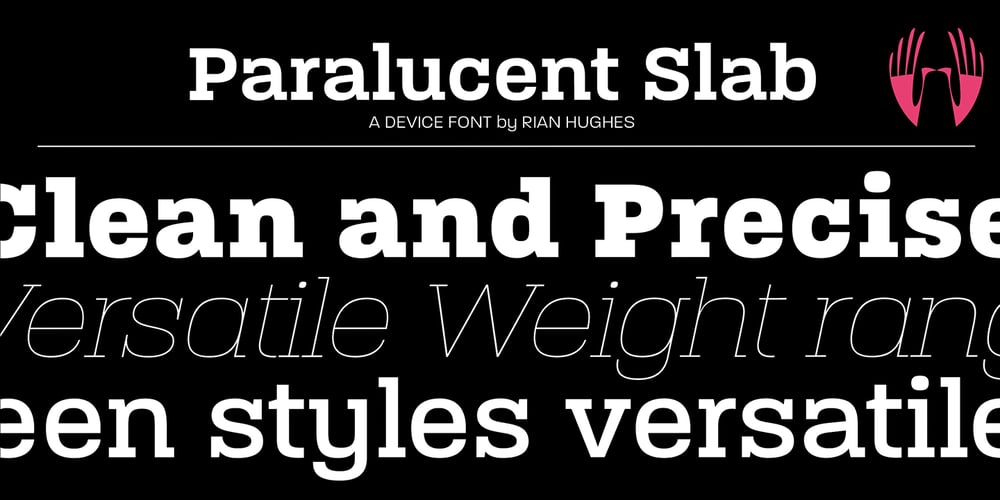
Paralucent Slab
Paralucent Slab font
Paralucent Slab Font Family was designed by Rian Hughes and published by Device. Paralucent Slab contains 14 styles and family package options. Paralucent Slab is an addition to the ever-popular Paralucent family. Paralucent is versatile all-purpose modern sans and slab serif design. Available in seven weights, from Thin to Heavy, with corresponding italics, it avoids some of the more eccentric calligraphic quirks of Akzidenz or Helvetica or the cool precision of Univers for an elegant, functional, yet warm design. Several core ideas inform Paralucent’s design. Prime attention has given to the negative space between characters, giving a more even “colour”, especially in text. For example, the J, L and T have shorter arms than comparable sans typefaces, while the M and W are wider. The A has a lower bar, opening up the interior counter. An unusually high lower-case x-height again helps to give a more even colour and improve legibility. Care has been taken to rationalise repeated elements like the tails on lower-case letters, or the Q and the “ear” of the g. Typographic design solutions that are consistent across all these features add more stylistic cohesion.‘Ink traps’ are exaggerated incisions used to open up a letter’s narrower internal angles, which can become clogged with ink, especially in small point sizes. Now largely redundant due to the high quality of modern print, they are still sometimes used as a stylistic quirk or design feature. Now that digital fonts are often reversed or outlined, or enlarged to enormous sizes, these can also lead to unexpected or obtrusive results. Paralucent takes these inevitable digital manipulations into account, and adds optical corrections without resort to ink traps.The family has been picked up by many UK and US publishers, featuring heavily in magazines like Loaded, Heat and TV Quick, as well as high-end coffee-table photography books and gallery websites. The addition of the Slab family adds even more options for running text and headline.